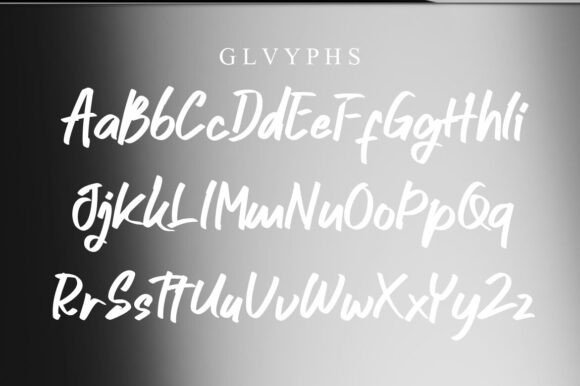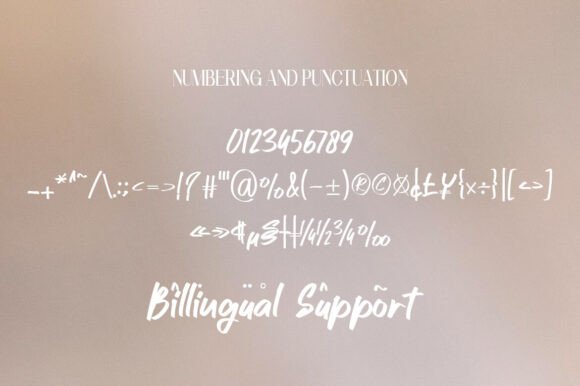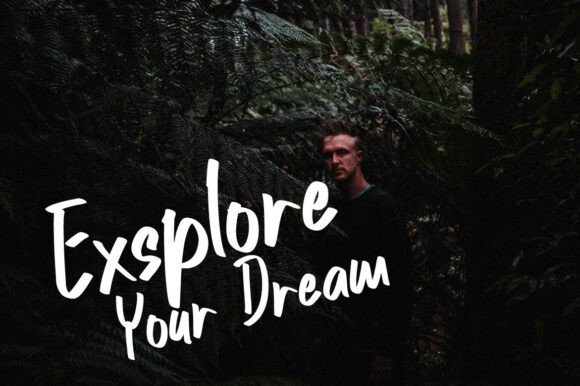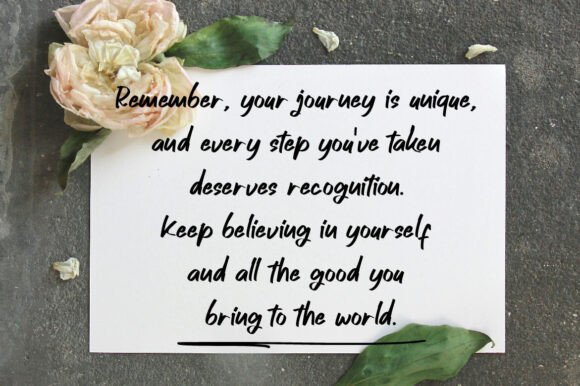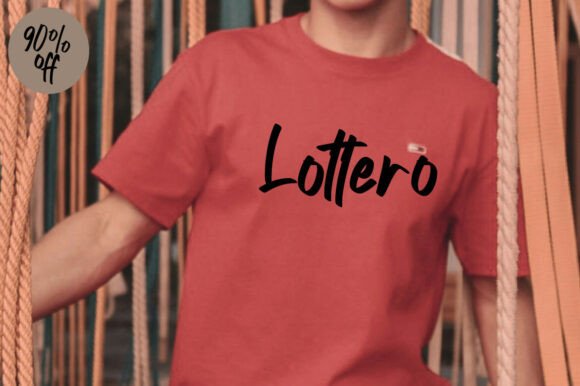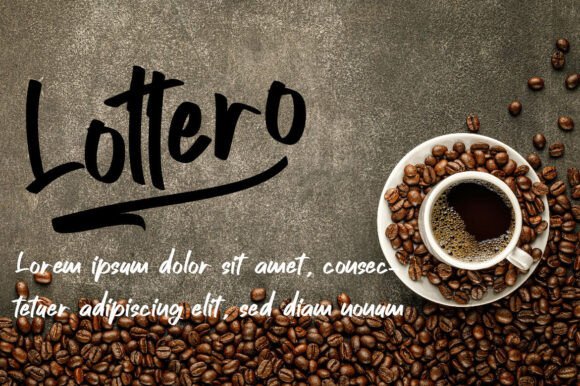
Introduction to Lottero Font
Imagine you’re sitting at your desk, surrounded by scraps of paper, half-finished projects, and a lingering sense of creativity. You’ve just received a brief for a Valentine’s Day campaign and you’re determined to create something truly special. As you begin to brainstorm, your eyes land on a font that catches your eye – the Lottero Font. Its bold, handwritten script immediately transports you to a world of romance and sophistication, and you know you’ve found the perfect design resource.
With its unique characters and striking elegance, the Lottero Font is a valuable addition to any designer’s toolkit. Whether you’re working on a high-quality creative project or need a font with a transparent background, Lottero Font has got you covered. And the best part? It’s available for free download, making it an accessible and affordable design resource for designers of all levels.
Key Features of Lottero Font
- High-quality design for creative projects, offering a unique aesthetic.
- Transparent background, allowing for easy layering and customization.
- Perfect for use in digital design, print materials, and other creative projects.
Honest Review: Lottero Font
As a designer, I’m always on the lookout for unique and high-quality design resources to elevate my creative projects. Recently, I had the chance to work with the Lottero Font, and I’m excited to share my honest review.
What works well: ✨ The Lottero Font is incredibly versatile, with a wide range of styles and weights that make it perfect for various design applications. I particularly love how the transparent background allows for seamless integration with my designs. The font is also incredibly easy to use, with clear instructions and a user-friendly interface.
Overall, I’m really impressed with the Lottero Font. It’s a fantastic design resource that’s perfect for smaller creative projects or personal endeavors. With a little bit of creativity and flexibility, you can achieve some amazing results with this high-quality font.
- Perfect for smaller creative projects or personal endeavors
Lottero Font
Introduction to Lottero Font
The Lottero Font is a high-quality, creative project that offers a unique and elegant design resource. This font is perfect for designers and artists looking to add a touch of sophistication to their work.
Tips for Getting the Most Out of Lottero Font
To get the most out of the Lottero Font, try using it with a transparent background to create a clean and modern look. You can also experiment with different font sizes and colors to find the perfect combination for your design project.
Common Use Cases for Lottero Font
The Lottero Font is perfect for a variety of design projects, including wedding invitations, business cards, and even social media graphics. Its high-quality design and elegant style make it a great resource for designers and artists of all levels.